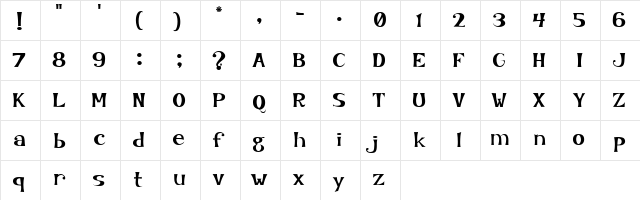
KookyRegular Font Preview
KookyRegular Regular
KookyRegular Font Details
Design Context for KookyRegular Typeface
KookyRegular is a composed and adaptable typeface that performs quietly and consistently across a wide range of design contexts.